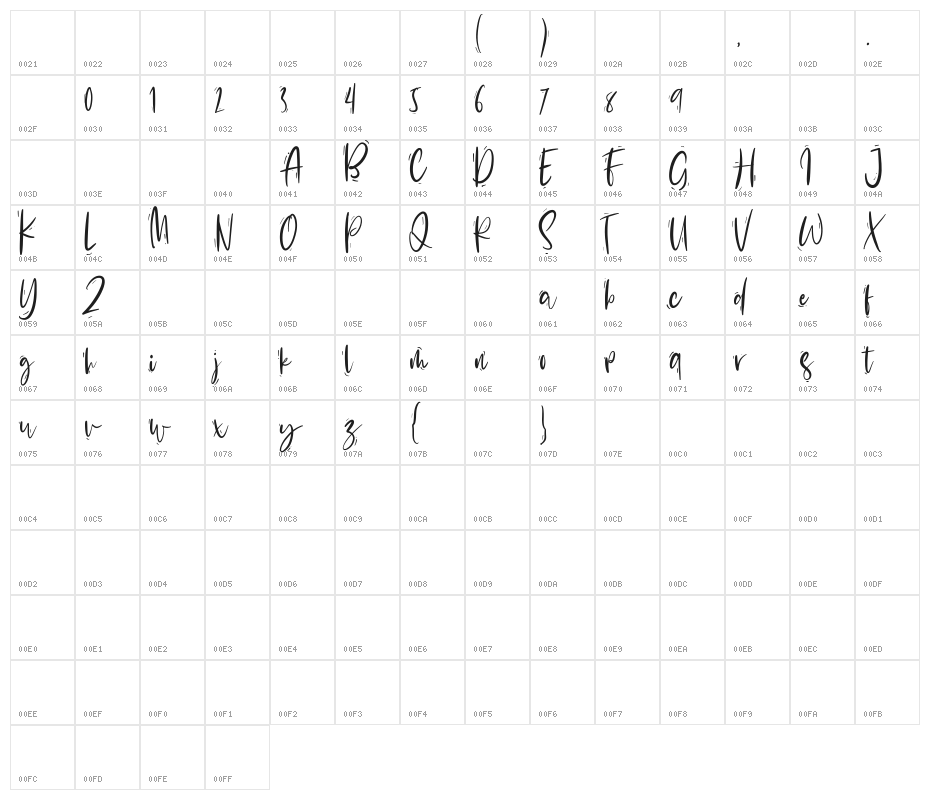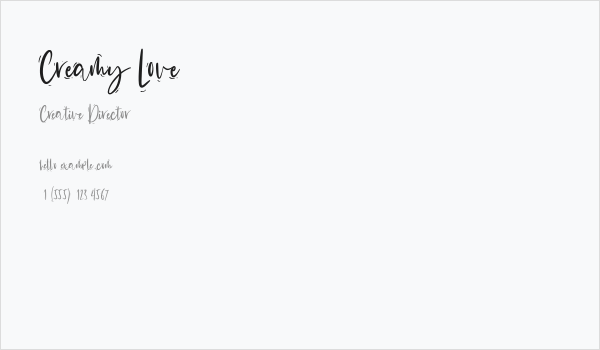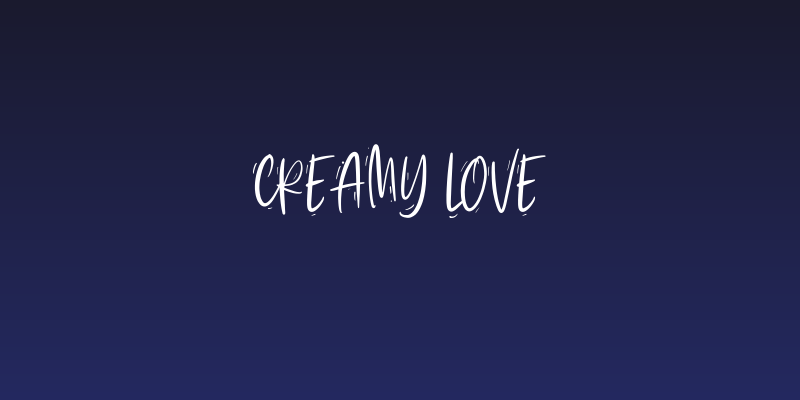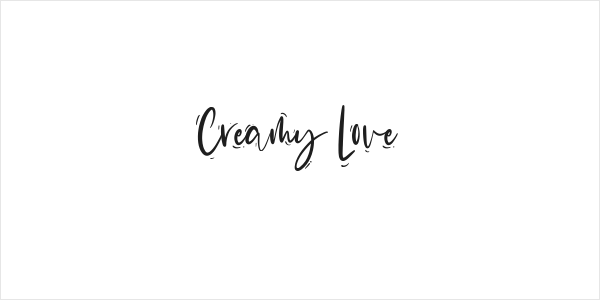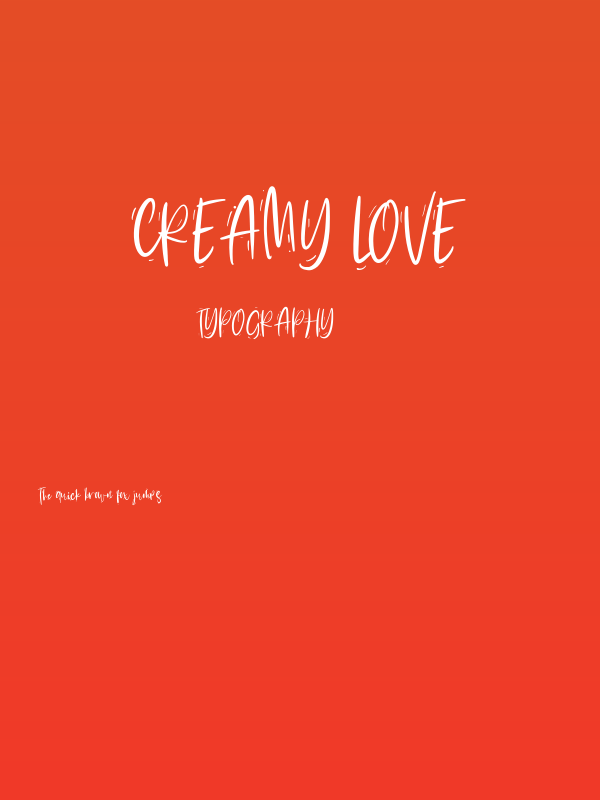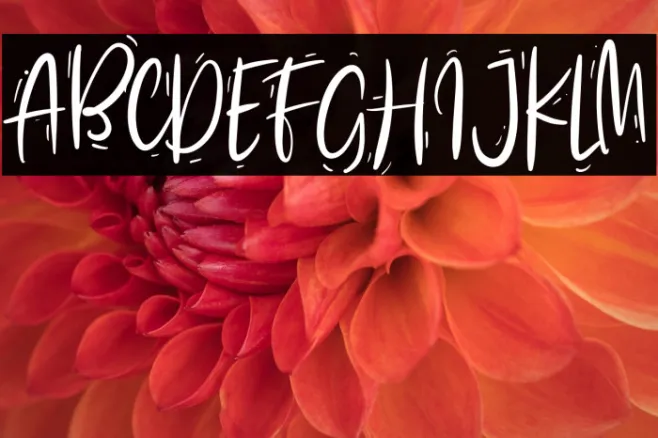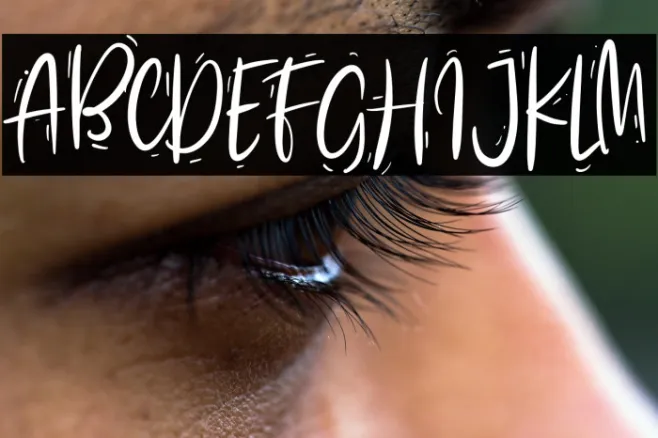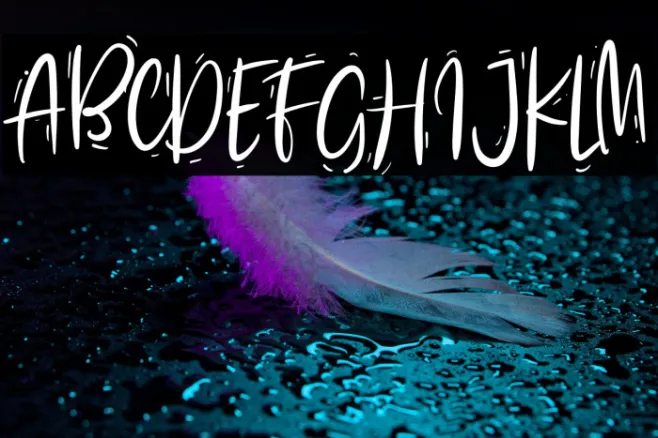
Creamy Love Font
Creamy Love Description
This font exudes a playful and artistic vibe, characterized by its handwritten style with a touch of whimsy. The letters are crafted with a fluid motion, giving them a dynamic and lively appearance. The strokes vary in thickness, adding an element of spontaneity and creativity. The uppercase letters are bold and prominent, while the lowercase letters maintain a consistent flow, enhancing the font's overall charm. Numbers and special characters are designed with the same playful energy, making them suitable for creative and informal projects.
| Proposed Projects | Ideal for greeting cards, invitations, playful branding, and creative social media graphics. |